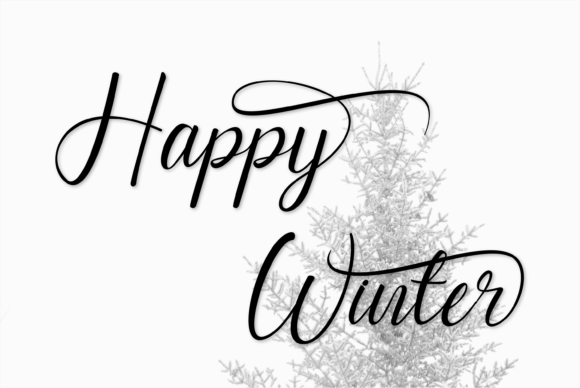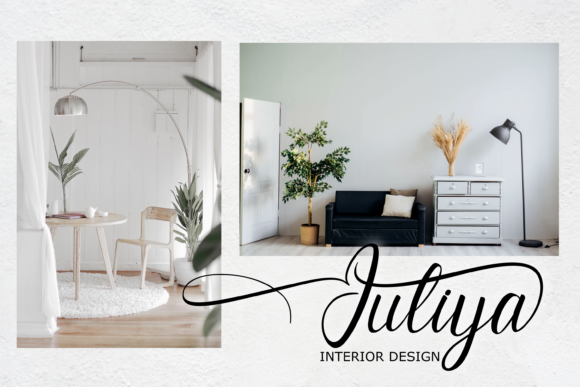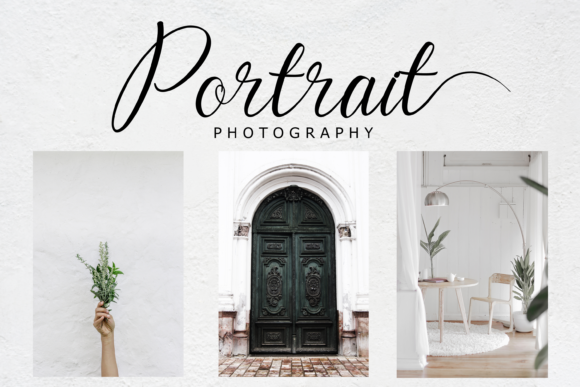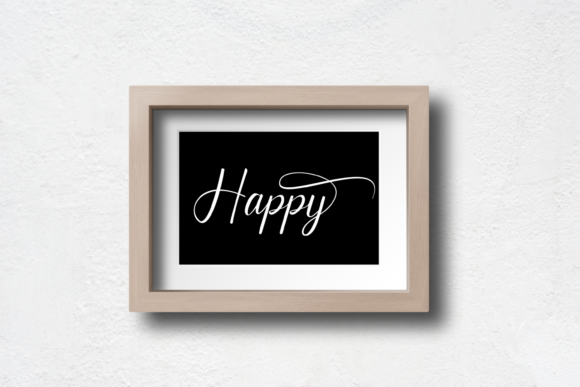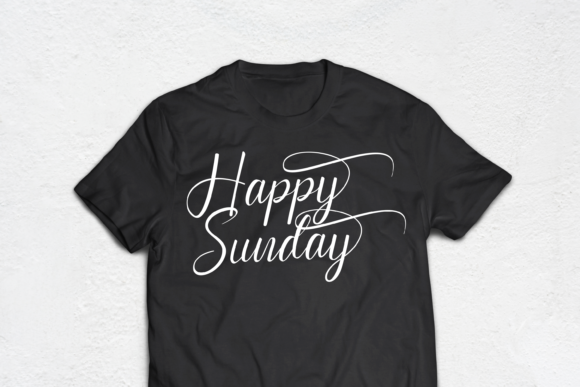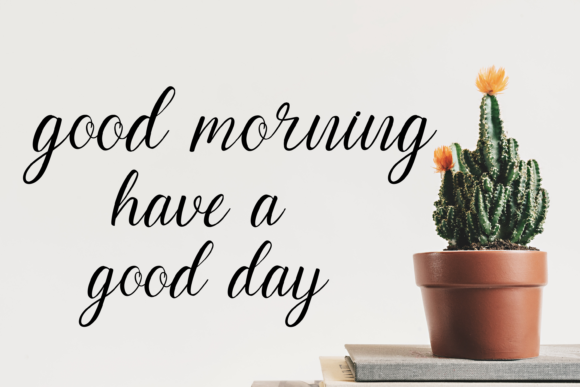
Introduction to Raellisca Font
Have you ever found yourself staring at a blank page, struggling to bring your creative vision to life? The perfect font can be the missing piece that sets your project apart and makes it truly unforgettable. For designers, the search for that ideal font can be a long and arduous one, but we’re excited to introduce you to a game-changing addition to your design arsenal: the Raellisca Font.
This elegant and sophisticated font is more than just a pretty face – it’s a versatile design resource that can elevate your creative project from ordinary to extraordinary. With its high-quality lines and transparent background, Raellisca Font is perfect for logos, branding, invitations, and much more. And the best part? It’s available for free download, making it an invaluable asset for designers of all levels.
Key Features of Raellisca Font
- High-quality design resource ideal for creative projects requiring a unique and elegant touch.
- Designed with a high level of detail and precision, resulting in a crisp and clear appearance at resolutions up to 300 DPI.
- Perfect for use in various design contexts, from branding and marketing materials to digital products and creative projects.
Honest Review: Raellisca Font
As a designer, I’m always on the lookout for high-quality fonts that can elevate my creative projects. Recently, I stumbled upon the Raellisca Font, and I’m excited to share my thoughts with you.
- ✨ The Raellisca Font has a beautiful, elegant design that’s perfect for any project that requires sophistication.
- ✨ The font comes with a transparent background, making it easy to customize and use in various design applications.
- ⚠️ The font may not be suitable for projects that require a bold or playful tone, as its elegant design can come across as too formal.
Overall, I’m impressed with the Raellisca Font’s high quality and versatility. While it may have some limitations, it’s a valuable addition to any designer’s toolkit. If you’re looking for a sophisticated font for your next creative project, I’d definitely recommend giving the Raellisca Font a try.
Some tips for getting the most out of the Raellisca Font include using it with a transparent background to create a seamless design, and pairing it with other high-quality design resources to create a professional-looking design.
Common use cases for the Raellisca Font include creating logos, business cards, and other marketing materials, as well as using it in graphic design projects and digital art.